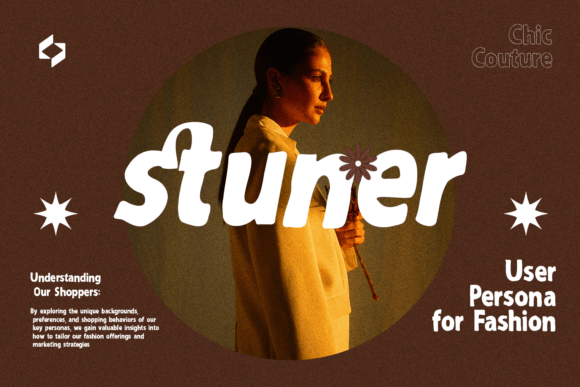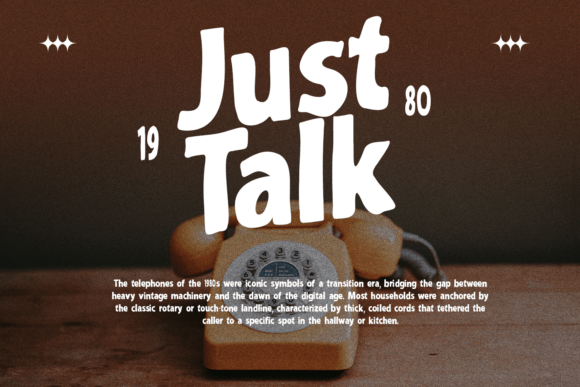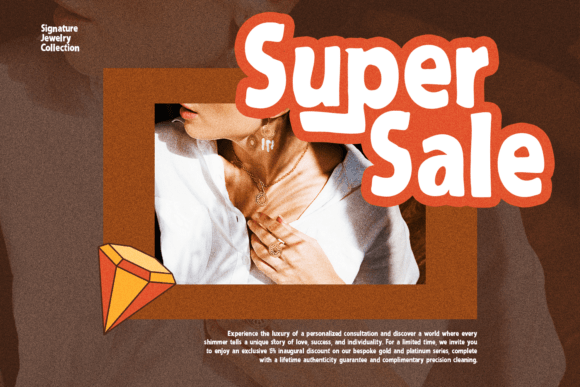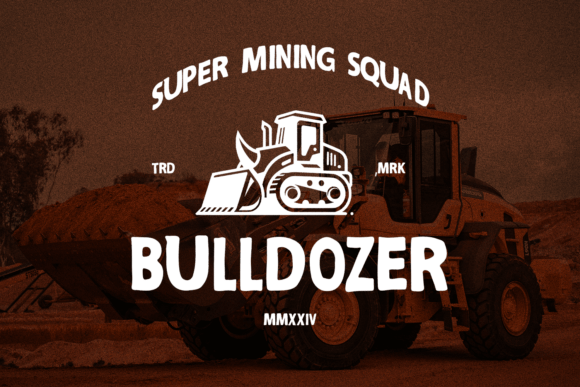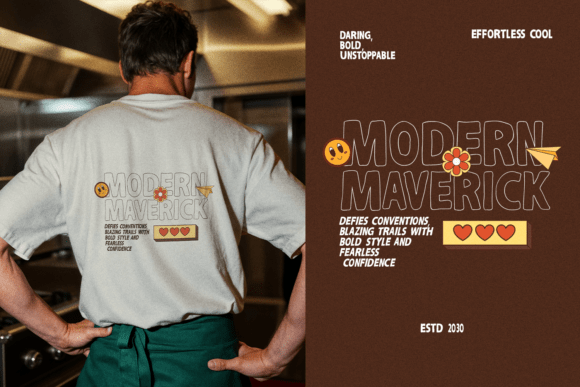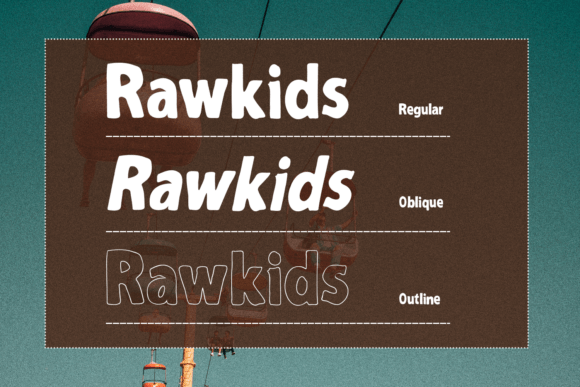
Introduction to Mavella Font
As you sit at your desk, staring at a blank canvas, a spark of creativity ignites within you. The possibilities are endless, but the perfect font can be the key to unlocking that perfect visual harmony. Enter Mavella Font, a game-changing handwritten sans font that’s about to revolutionize your creative projects.
Mavella Font is more than just a font – it’s a breath of fresh air that brings warmth, playfulness, and a friendly vibe to your designs. Its unique blend of organic flow and chunky rounded shapes makes it the ultimate design resource for anyone looking to add a touch of high-quality, modern appeal to their work.
Whether you’re a seasoned designer or a creative entrepreneur, Mavella Font is the perfect addition to your design arsenal. With its versatility and range of styles, including Regular, Oblique, and Outline, you’ll be able to craft unique and engaging visual impacts that leave a lasting impression. And the best part? Mavella Font is available for free download, complete with transparent background options, making it an invaluable resource for anyone looking to take their creative projects to the next level.
Key Features of Mavella Font
- High-quality design resource suitable for various creative projects, including digital art and graphic design.
- Features a transparent background, allowing for seamless integration with different design elements.
- Includes a range of characters and symbols, making it a versatile design resource for various creative projects.
- Unique characteristics include a modern and elegant design style, making it perfect for various design applications.
Honest Review: Mavella Font
I recently had the chance to work with the Mavella Font for a creative project, and I must say it’s been a game-changer. As a designer, I’m always on the lookout for high-quality design resources that can elevate my work, and Mavella Font definitely delivers.
One of the standout features of the Mavella Font is its sleek, modern design. The clean lines and minimalist aesthetic make it perfect for a wide range of creative projects, from branding and advertising to web design and more. The font is also incredibly versatile, with a transparent background that allows for seamless integration with other design elements.
Here are some of the things that work well with the Mavella Font:
- ✨ Sleek, modern aesthetic that’s versatile and adaptable
- ✨ Transparent background for easy integration with other design elements
- ⚠️ Limited character set, which may not be suitable for projects that require a wide range of characters
- ⚠️ May not be suitable for projects that require a bold, attention-grabbing font
Overall, I’m really impressed with the Mavella Font. While it may have a few limitations, its high-quality design and versatility make it an excellent addition to any designer’s toolkit. With a free download available, it’s definitely worth checking out for your next creative project.
Use the Mavella Font in conjunction with a transparent background to create a clean and minimalist design. Experiment with different font sizes and styles to add visual interest to your creative project.
The Mavella Font is ideal for use in a variety of design applications, including brochures, flyers, and business cards. It’s also a great choice for use in digital design, such as website headers and social media graphics.